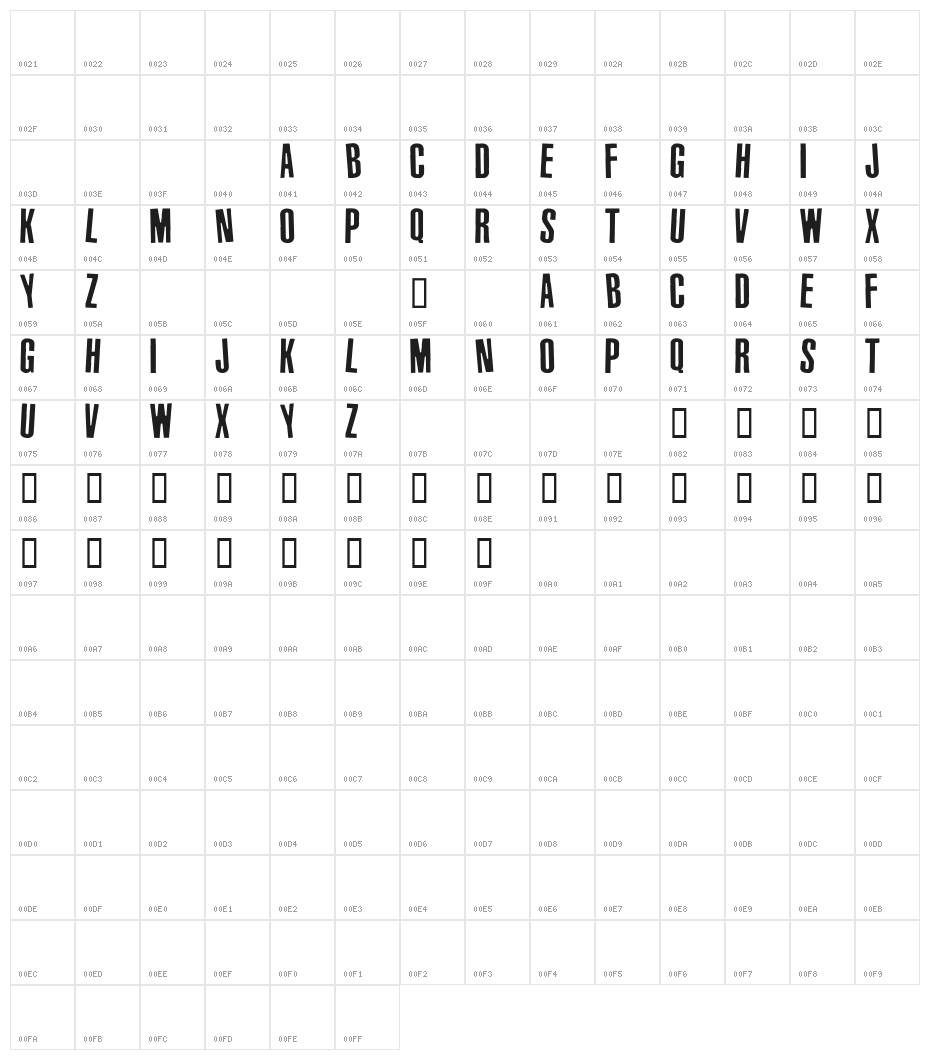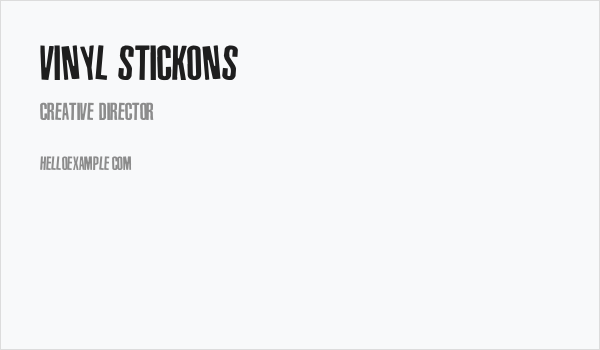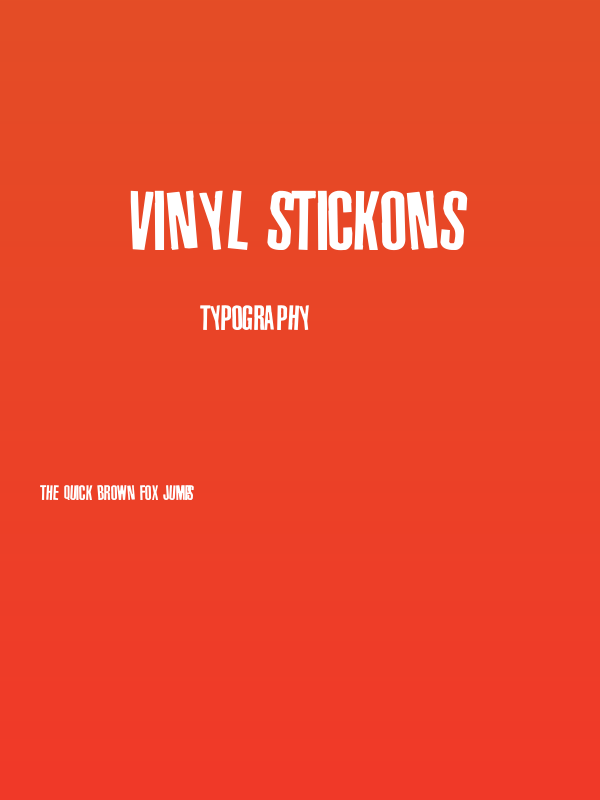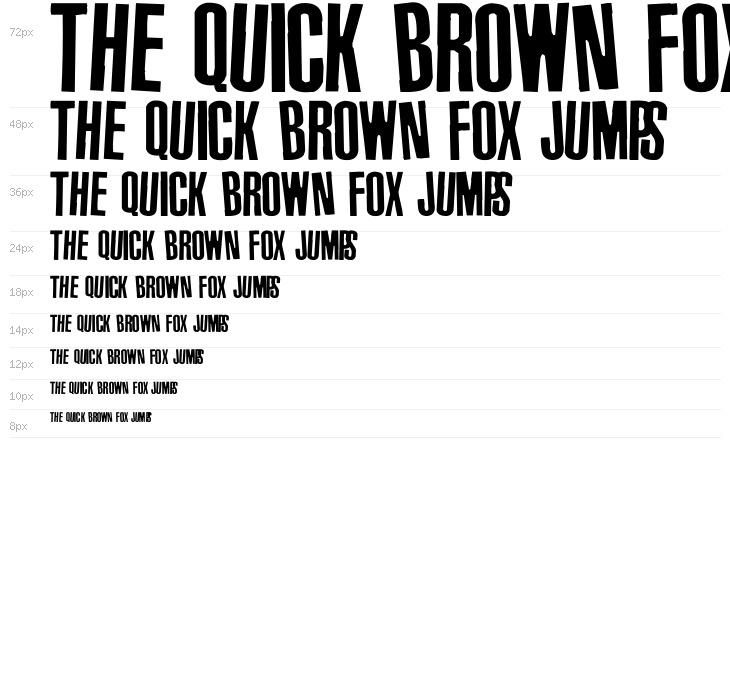
Vinyl Stickons Font
| 用途 | Headlines, Signage, Branding |
| おすすめプロジェクト | This font is perfect for posters, banners, and signage where bold, clear communication is essential. It can also be used in branding projects that require a modern and assertive look. |